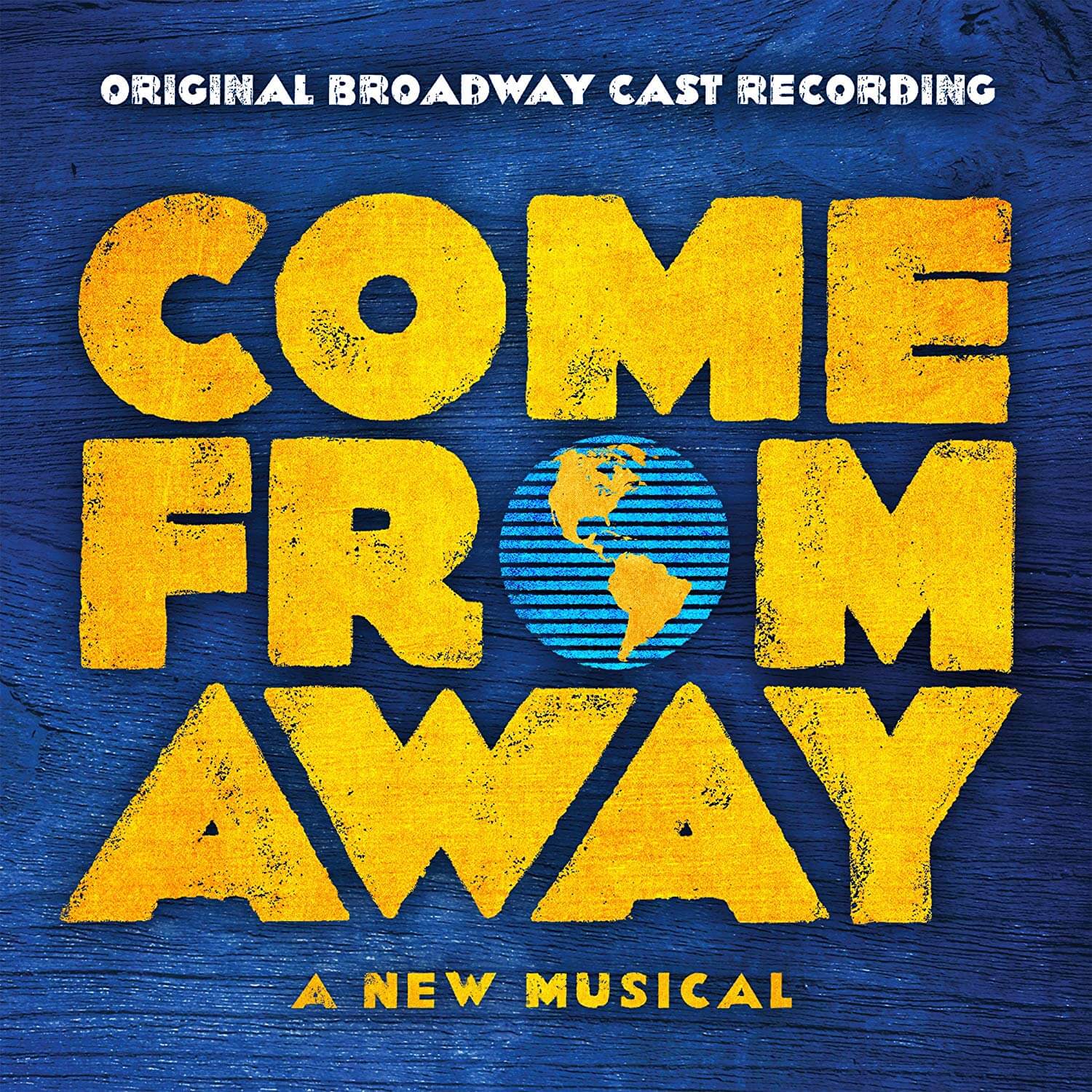
Come from Away Font
Fonts in UseCome from Away is a musical with a book by Irene Sankoff and David Hein. It tells the true story of how a small town in Newfoundland, Canada welcomed and housed thousands of stranded airline passengers after the September 11 terrorist attacks.
The musical's logo showcases distressed WTC ELO caps, a weathered typeface created by Mateusz Machalski, which can be found in the Wood Type Collection here.